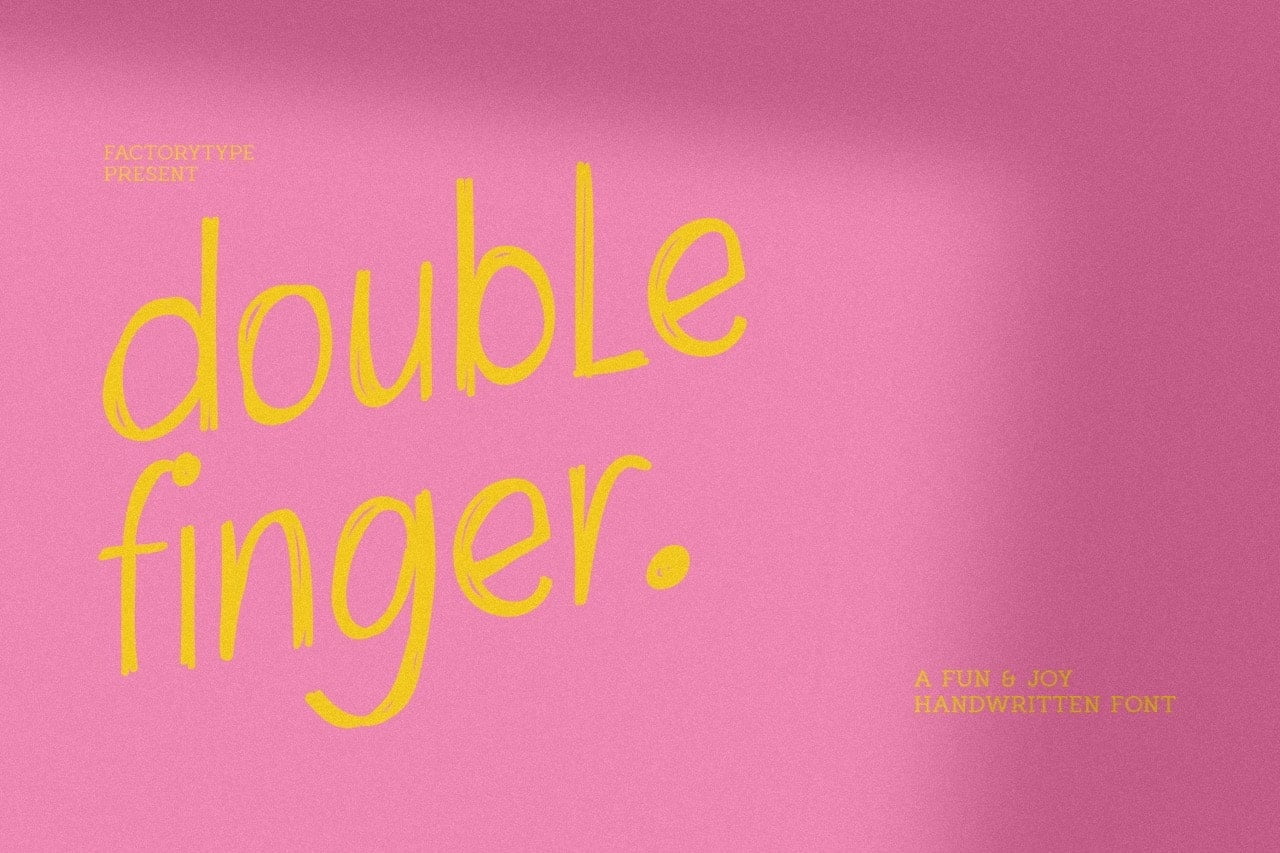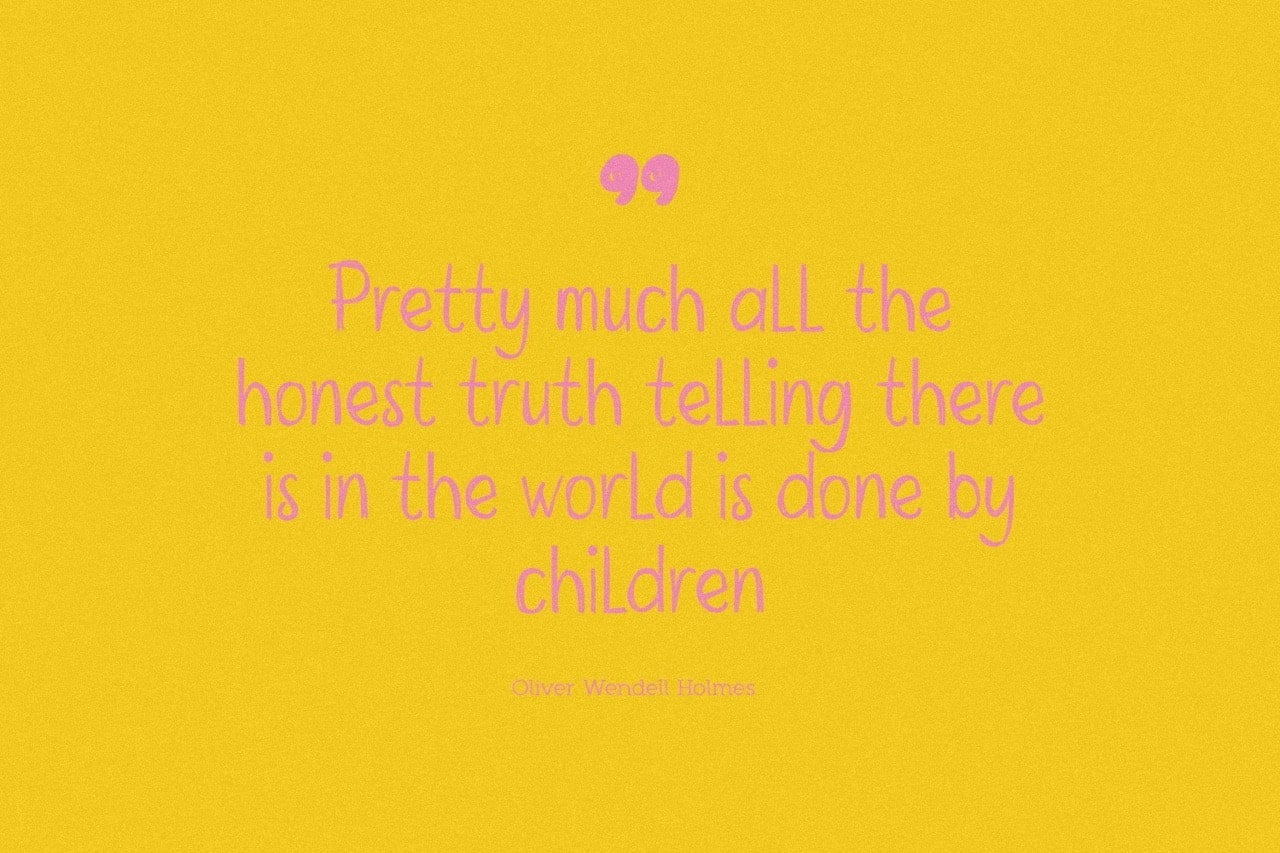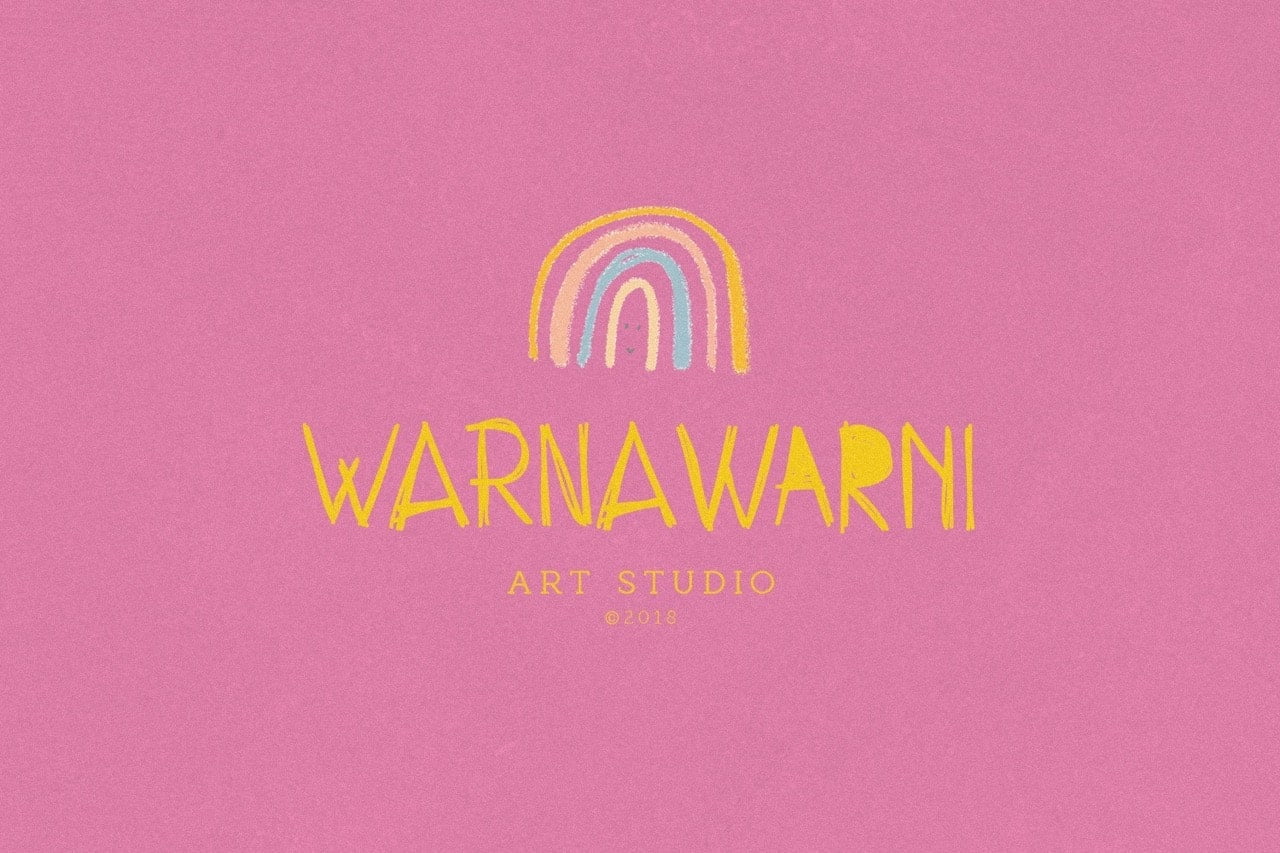
Doublefinger is a cheerful and entertaining font set. It can be used for children’s projects, wedding invitations, branding, logos, apparel, and more. Every letter has been painstakingly crafted to give your text a stunning appearance.
Doublefinger Cheerful Font